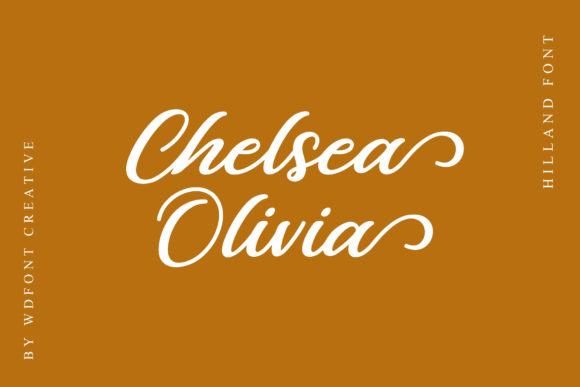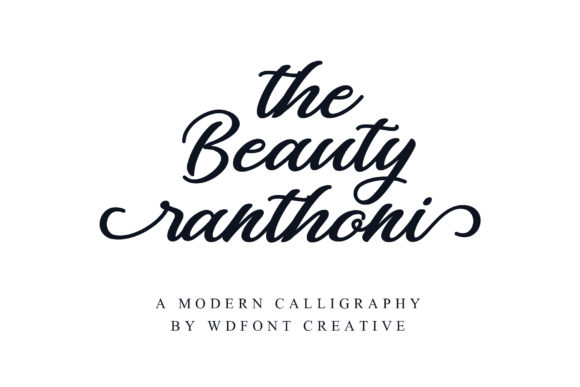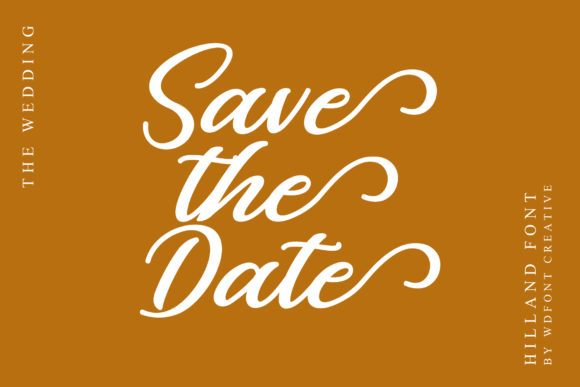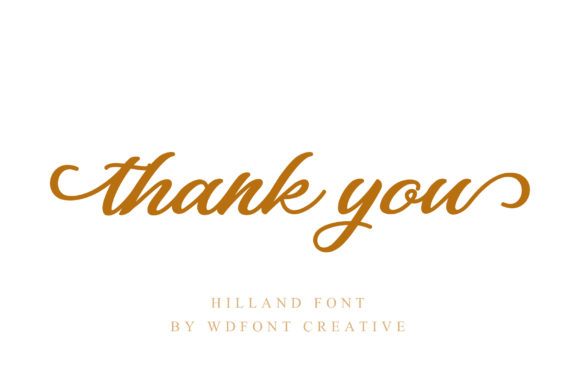
Introduction to Hilland Font
As a designer, there’s nothing quite like the thrill of landing on the perfect font for a creative project. It’s that moment when all the pieces fall into place, and your vision starts to take shape. For many of us, it’s a search that’s driven by a desire to evoke emotion and tell a story through our work. And that’s exactly what the Hilland Font does – it’s a light and fresh handwritten font that will inspire any design project with its incredibly romantic feel.
With its delicate lines and high-quality design, the Hilland Font is a valuable resource for designers looking to add a touch of elegance to their work. Whether you’re working on a wedding invitation, a greeting card, or a branding project, this font is sure to impress. And the best part? It’s available for free download, making it a great addition to any design library.
Key Features of Hilland Font
- High-quality design resource with a transparent background, perfect for creative projects that require a modern and sleek look.
- Unique characteristics include its modern and minimalist design, ideal for use in branding, logos, and other visual identity projects.
- Suitable for a wide range of creative projects, from digital art to print materials, and is a valuable addition to any designer’s design resource library.
Honest Review: Hilland Font
I recently came across the Hilland Font, and I must say, it’s been a valuable addition to my design resources. The font is perfect for any creative project that requires a modern, elegant touch.
What works well about the Hilland Font is its high quality design, making it suitable for both digital and print media. It’s also a great choice for projects that require a transparent background, as it blends seamlessly with any design element.
- ✨ Great for creative projects that require a modern, elegant touch
- ✨ Suitable for both digital and print media
- ✨ Great choice for projects that require a transparent background
- ✨ High quality design
However, I do have some limitations to mention. The font is not as versatile as some other fonts, and it may not be suitable for projects that require a bold, dramatic effect. Additionally, the font only comes in a single weight, which may limit its use in certain situations.
⚠️ Limited versatility and only one weight available
Overall, I’m quite impressed with the Hilland Font. It’s a high-quality design resource that’s perfect for any creative project. While it may have some limitations, it’s definitely worth considering for your next design project.
Hilland Font is a versatile design resource suitable for various creative projects, including social media graphics, presentations, and brochures. Its high-quality design and transparent background make it an excellent choice for backgrounds, overlays, and text elements.